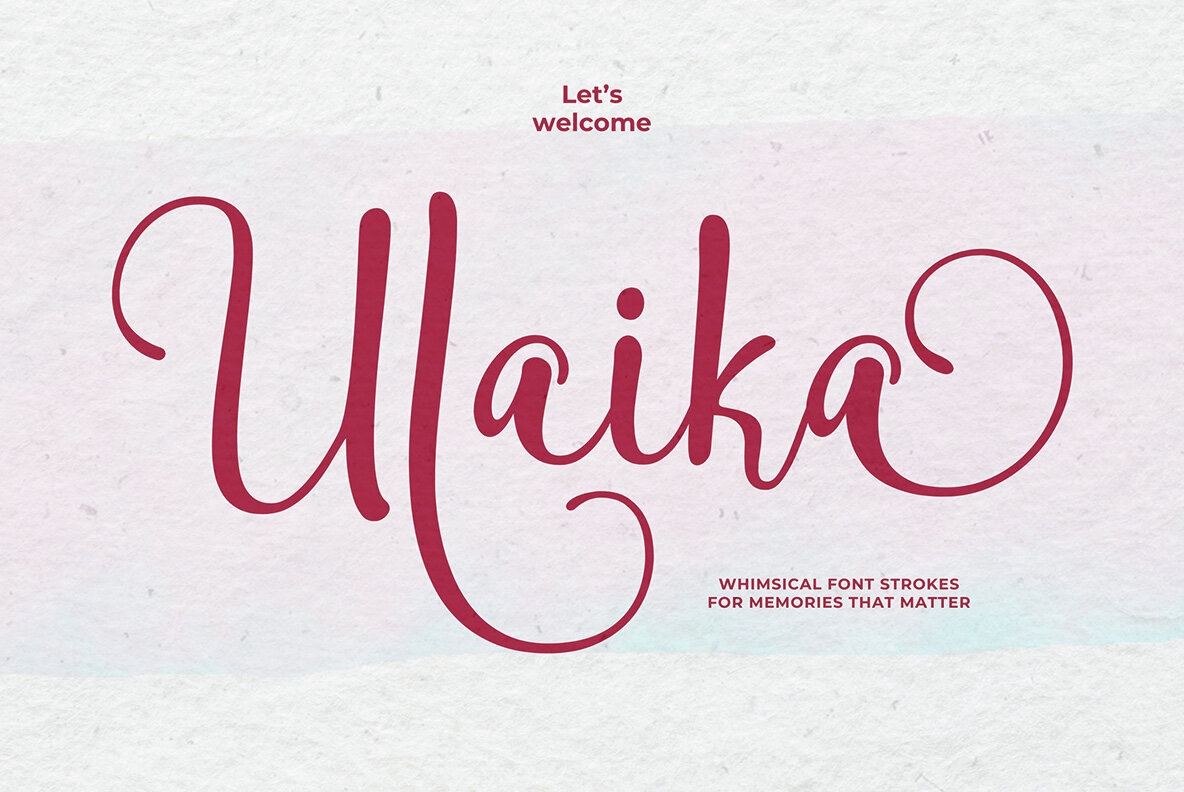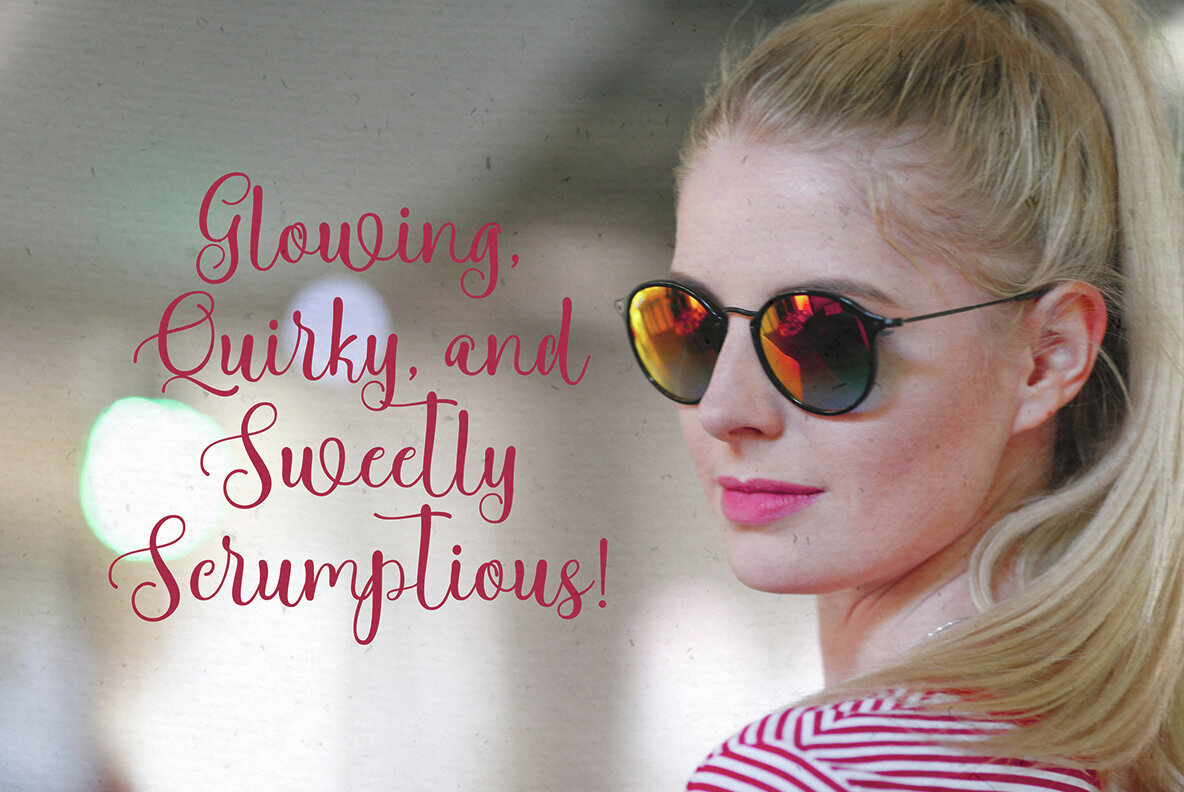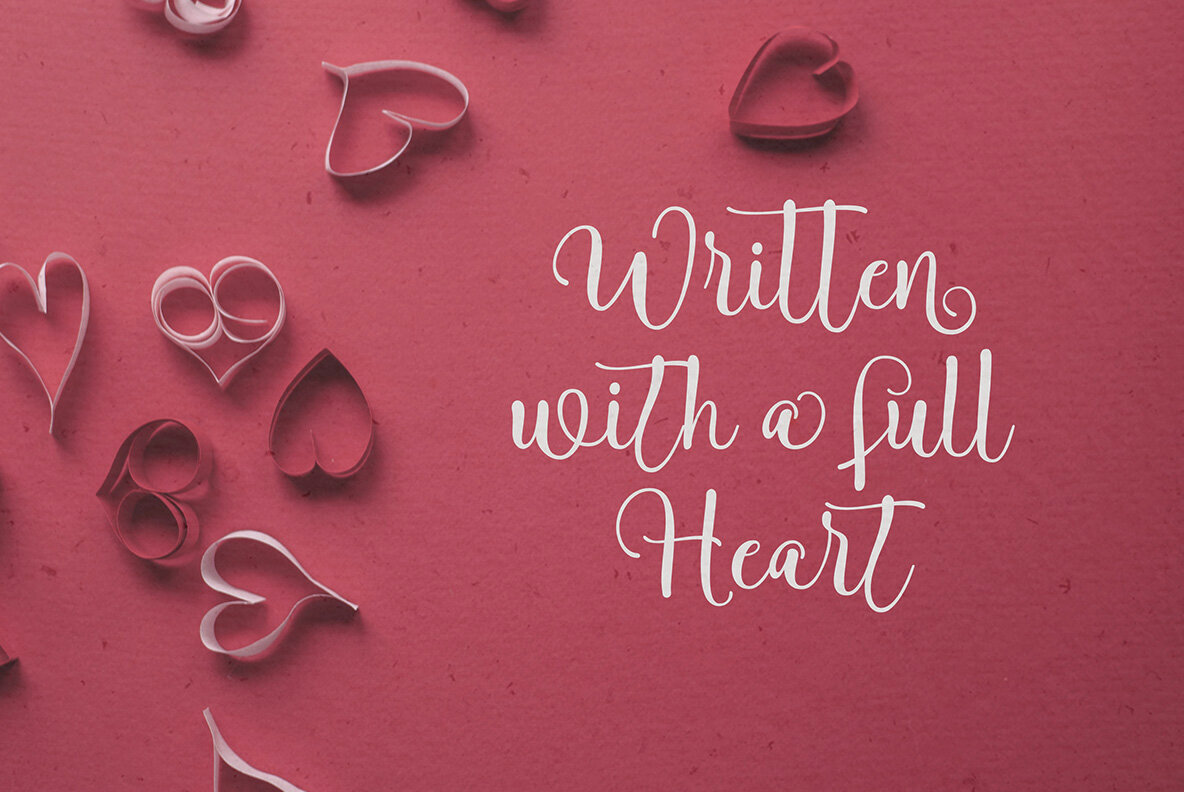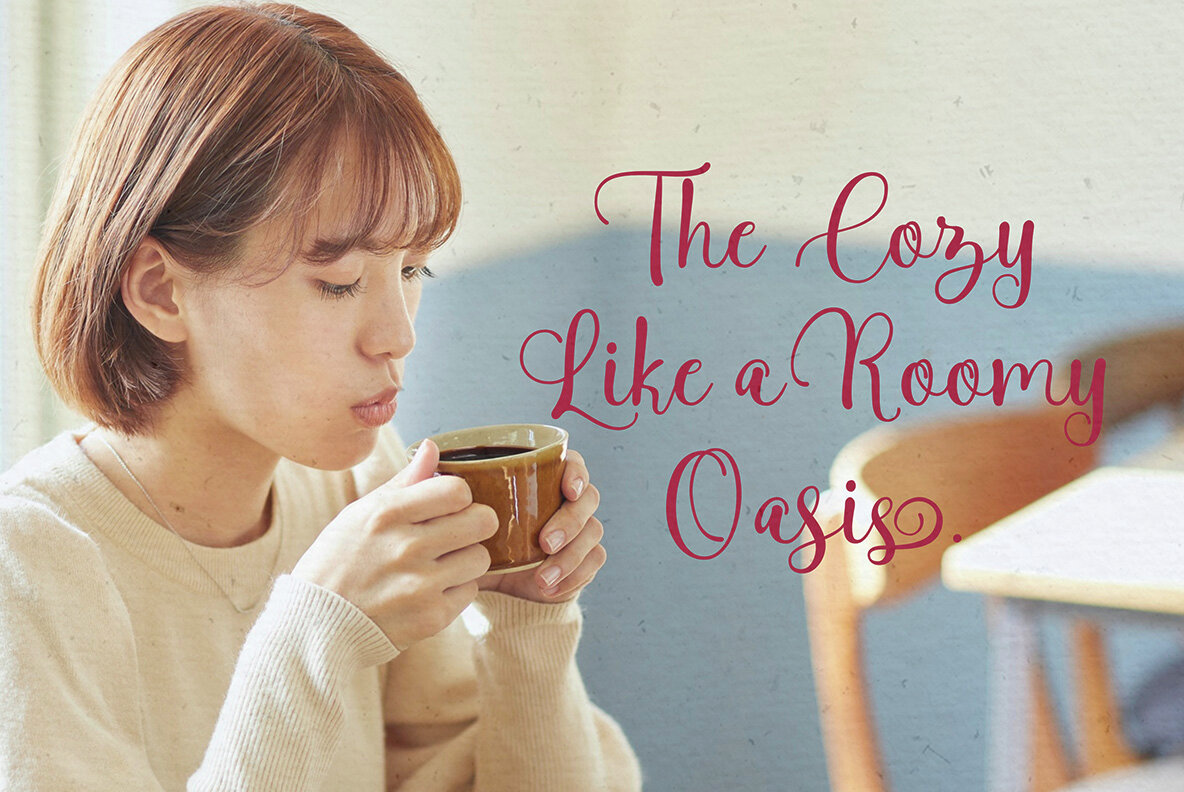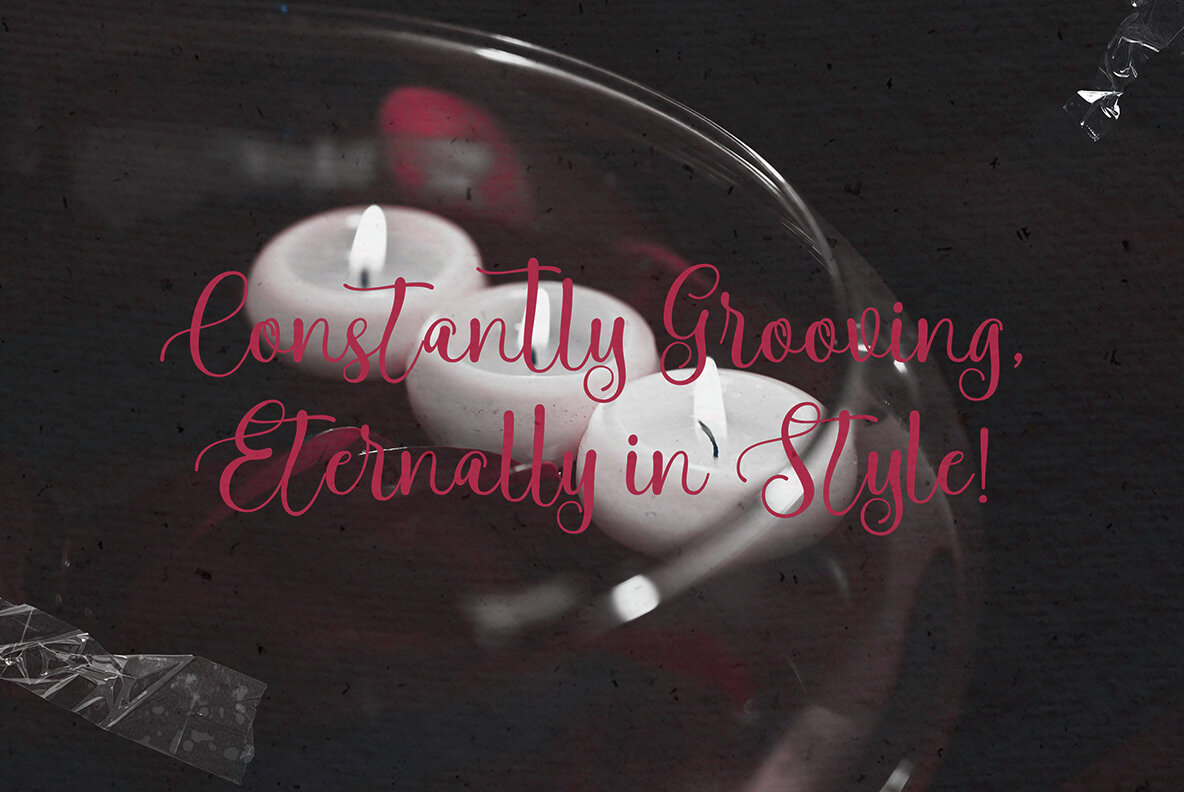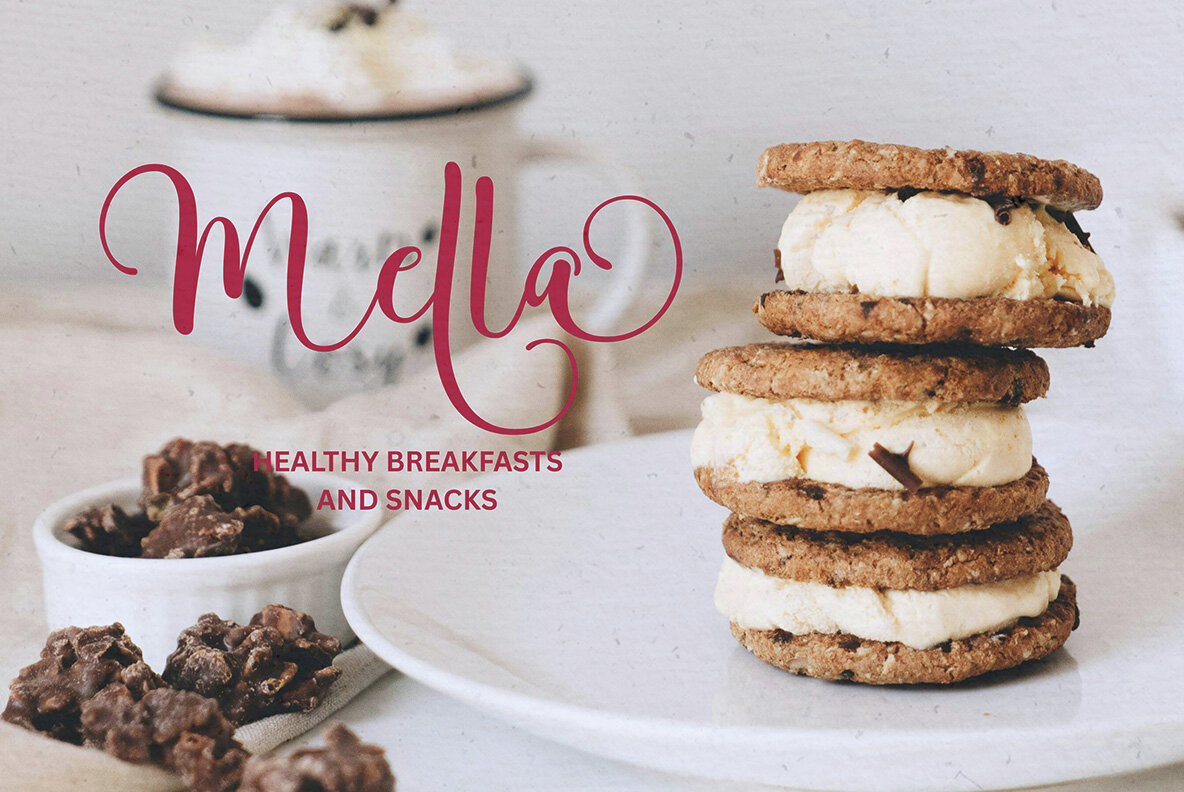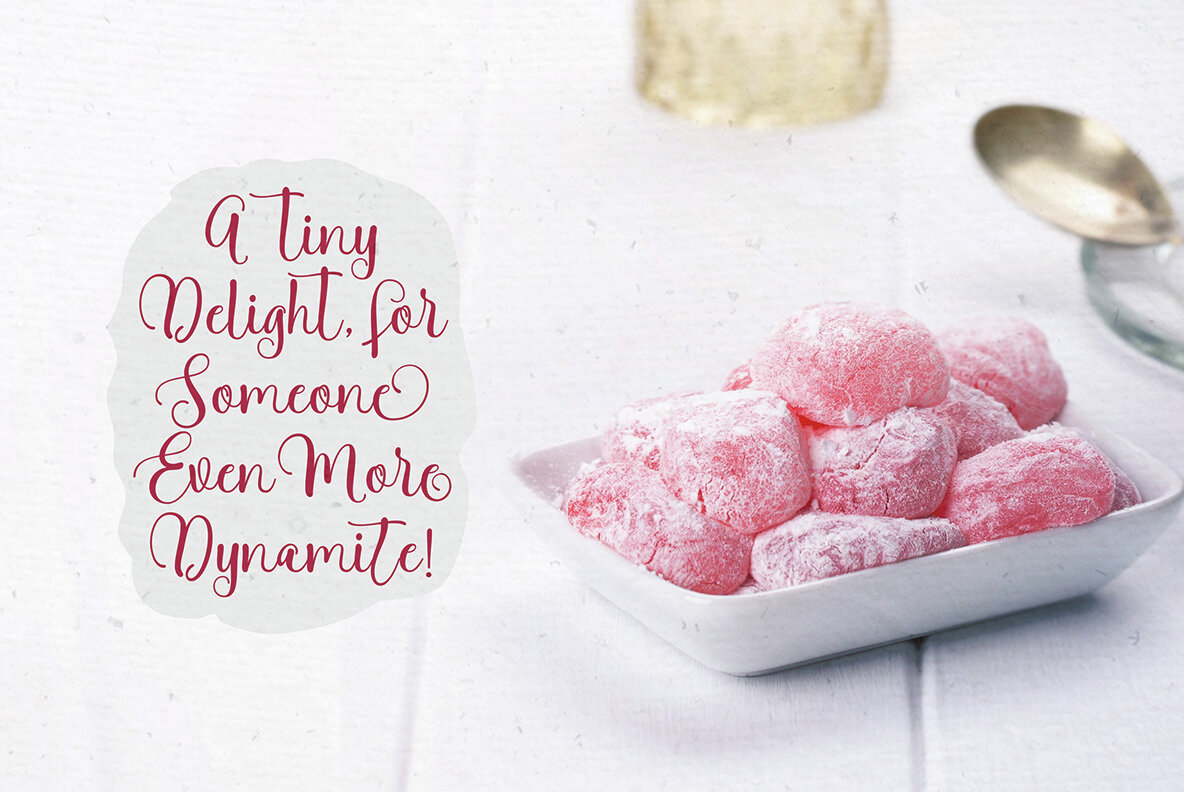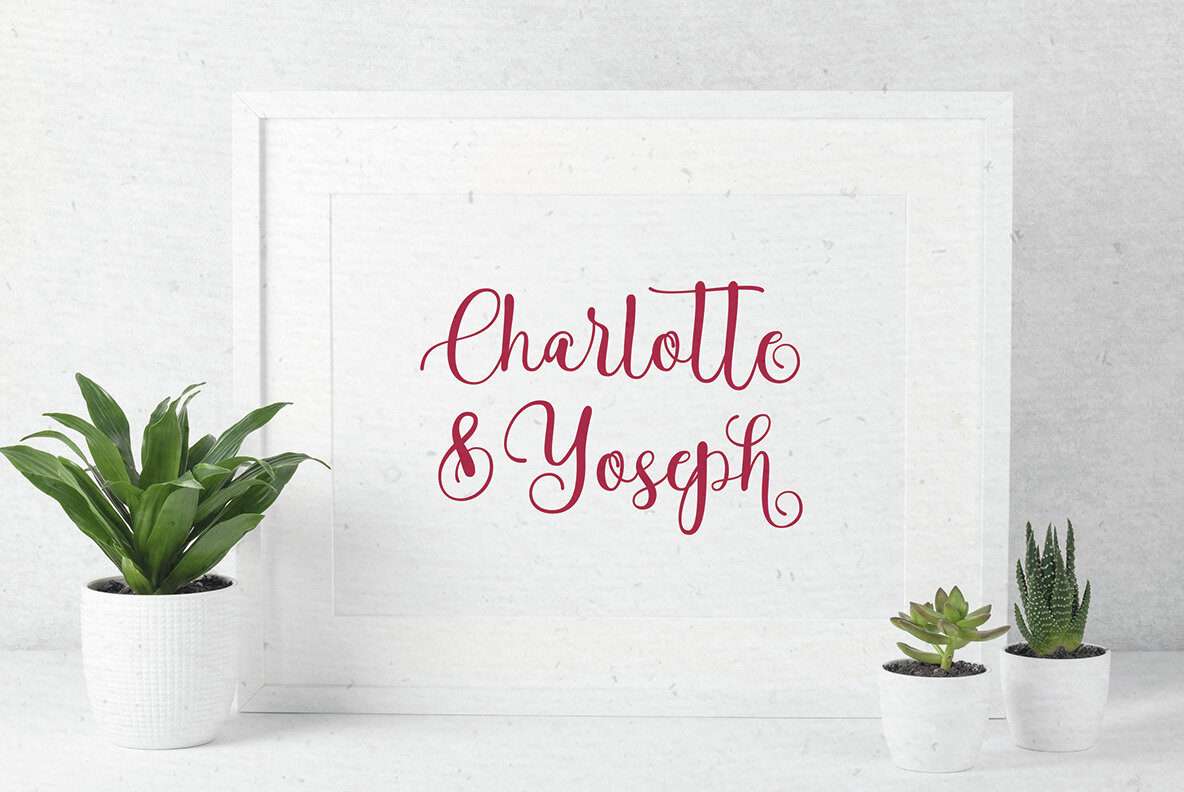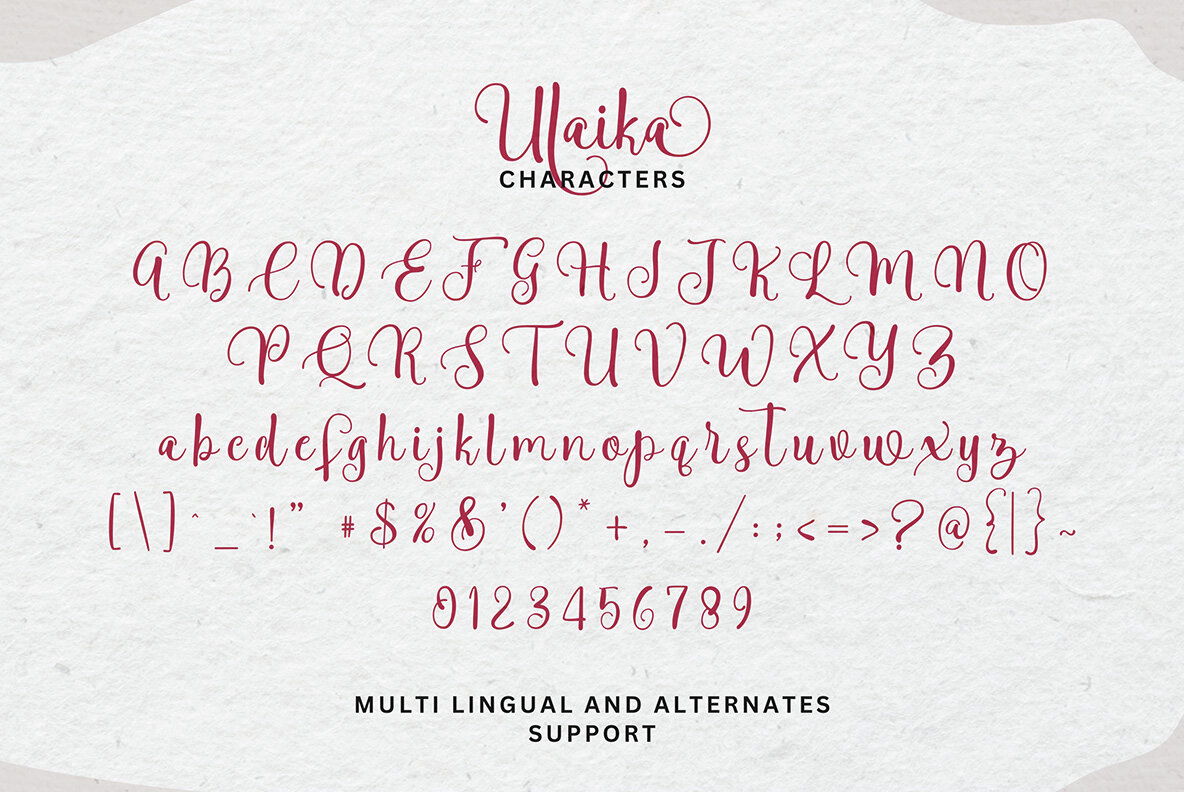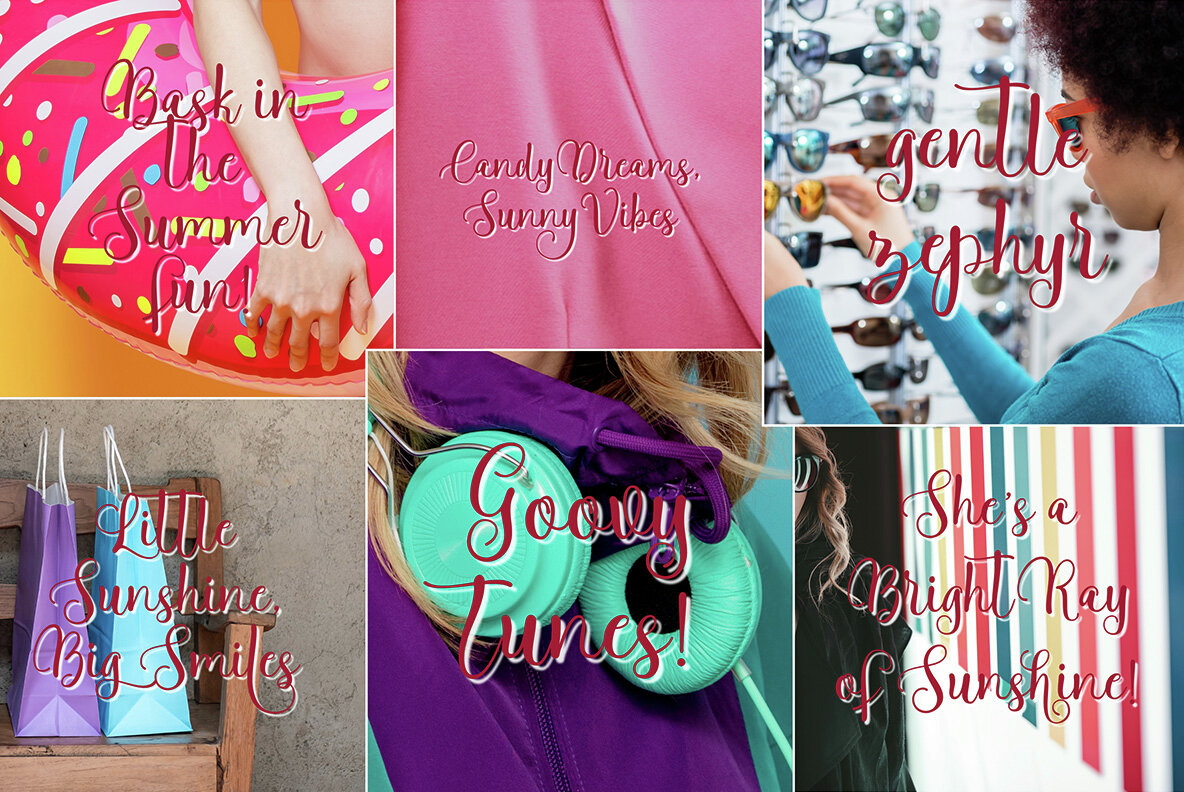
Ulaika Font
Ulaika
Meet Ulaika, the modern casual script font that infuses your designs with effortless charm and dynamic energy. With its stylish curves and smooth strokes, Ulaika transforms your text into a handcrafted masterpiece. Ideal for display, it comes with a complete set of swashes and expressive stylistic alternates, perfect for adding character to anything from weddings and branding to heartfelt quotes and logos. Ulaika excels in a variety of projects, including event stationery, Instagram graphics, product packaging, greeting cards, and journaling. Whether you're crafting a bold brand identity or something more tender and sentimental, Ulaika offers the perfect blend of fun and sophistication to elevate your creative works.Embrace the Playful Charm of Ulaika